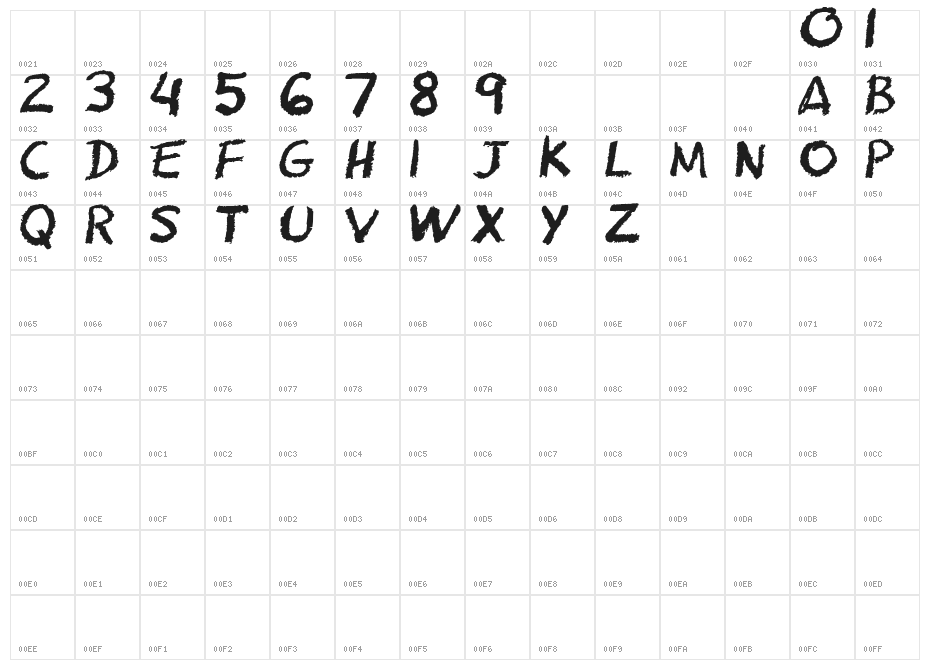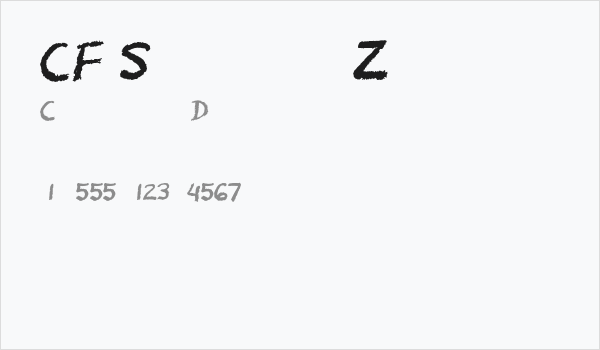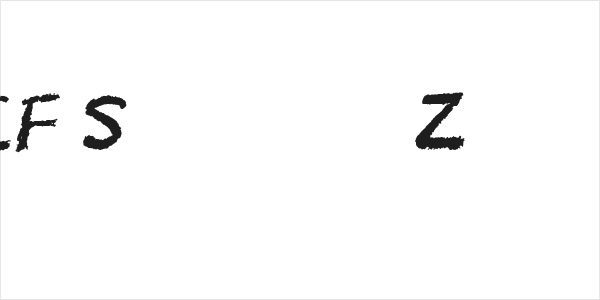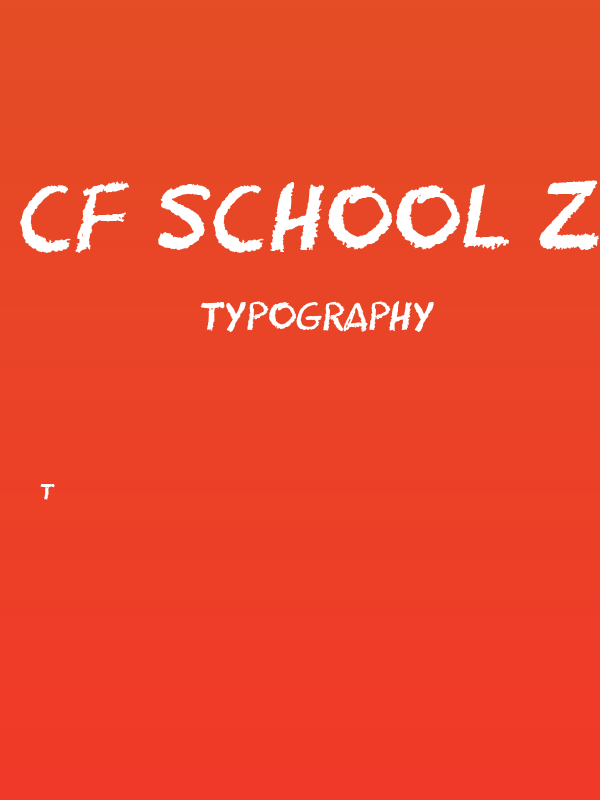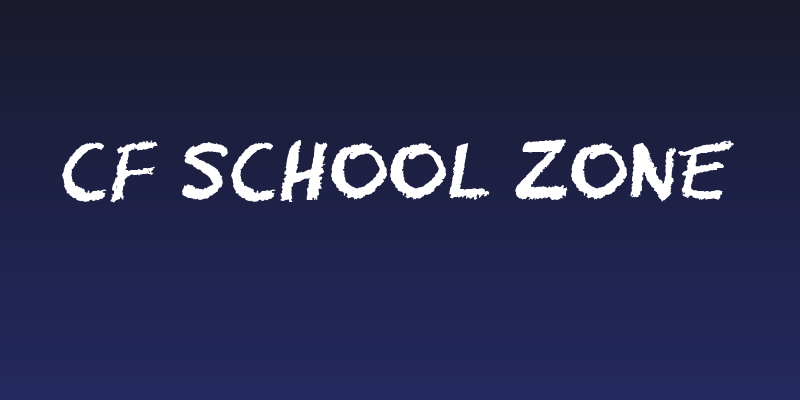
CF School Zone Font
CF School Zone Description
This font features a playful and energetic style, reminiscent of chalk or crayon drawings. The characters have a rough, textured appearance, giving them a hand-drawn feel. The uppercase letters are bold and dynamic, with varying stroke thickness that adds to the lively aesthetic. The numbers follow the same playful design, making them stand out with their unique and informal look. This font is perfect for projects that require a fun and approachable vibe, such as children's books, educational materials, or playful branding.
| Proposed Projects | Ideal for children's books, educational materials, playful branding, and creative posters. |